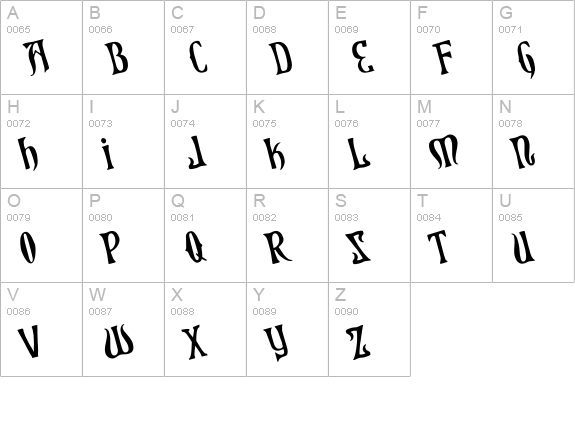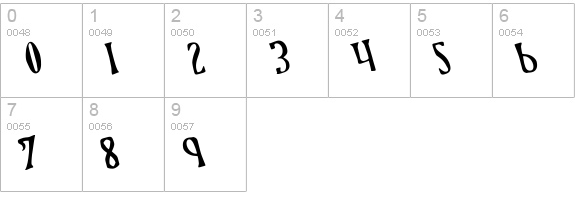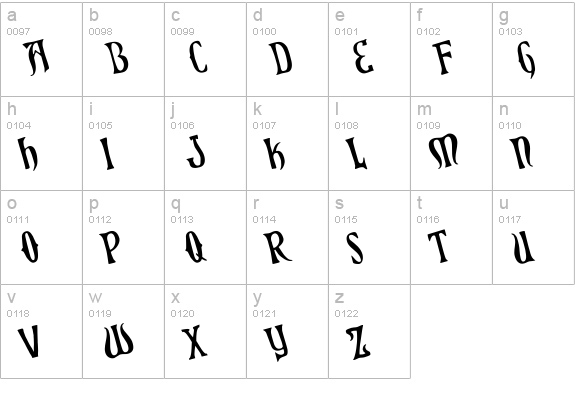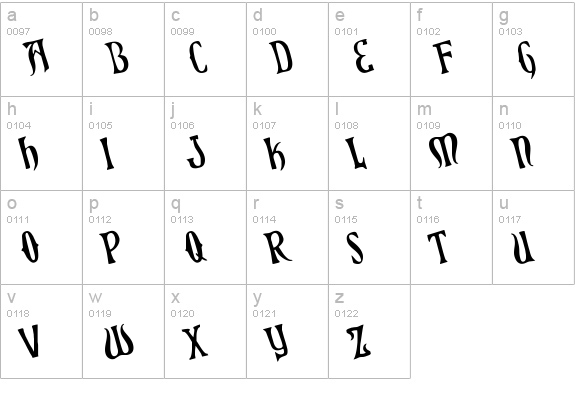
Xiphos Rotated Font Details
Xiphos Rotated is a striking and dynamic display font that captivates with its edgy and modern design. Its unique rotation adds a sense of movement and energy, making it perfect for attention-grabbing headlines, branding materials, and creative projects. The sharp angles and sleek lines give Xiphos Rotated a futuristic and avant-garde look that sets it apart from traditional fonts. The best part? Xiphos Rotated is available for free download at FontsMarket.com, allowing designers and creatives to easily access this eye-catching font for their projects. Whether you're looking to add a bold statement to your designs or simply want to experiment with a fresh and innovative typeface, Xiphos Rotated is the perfect choice. Download it today and see how it can elevate your creative work to new heights.